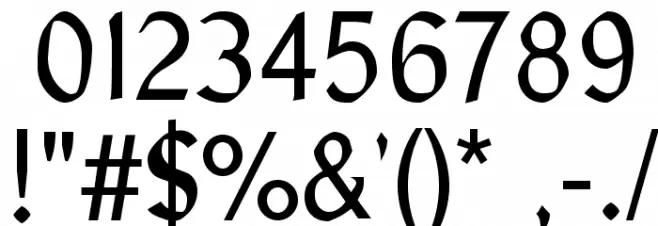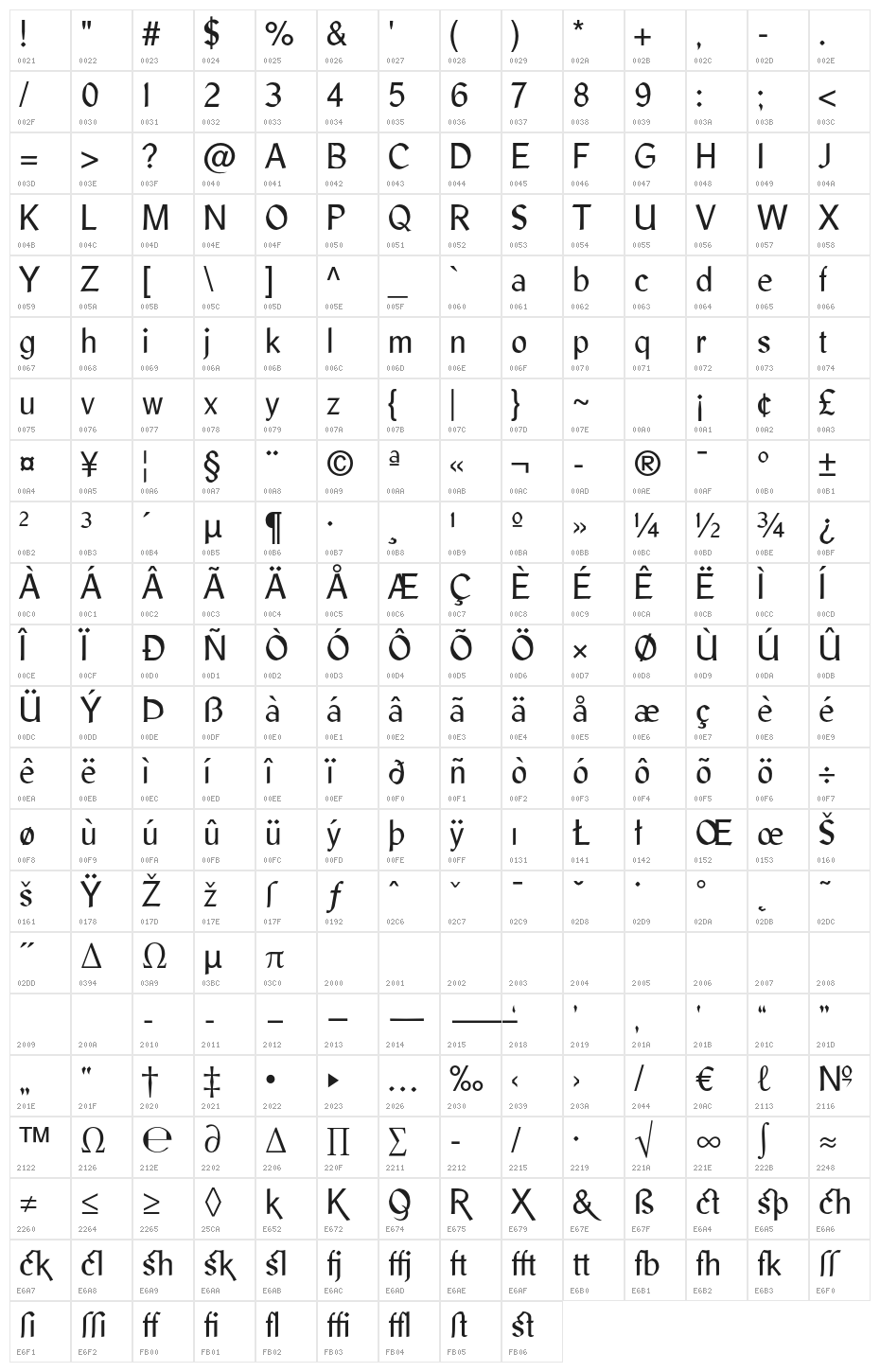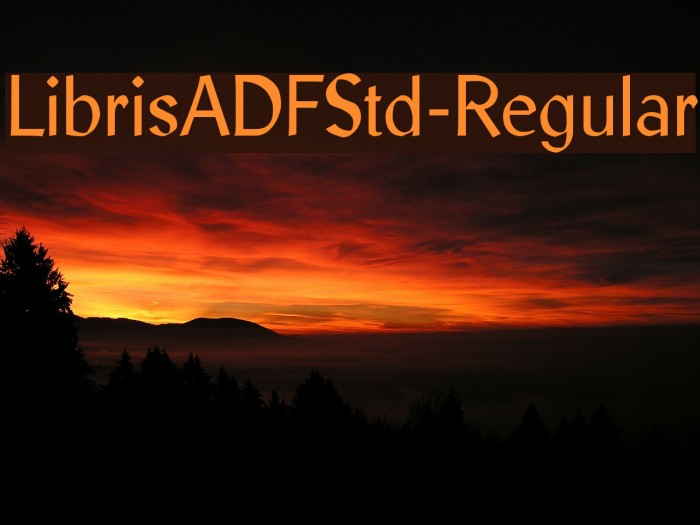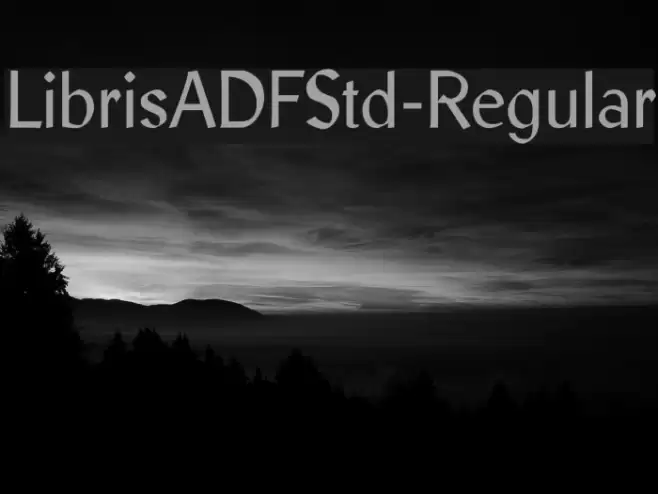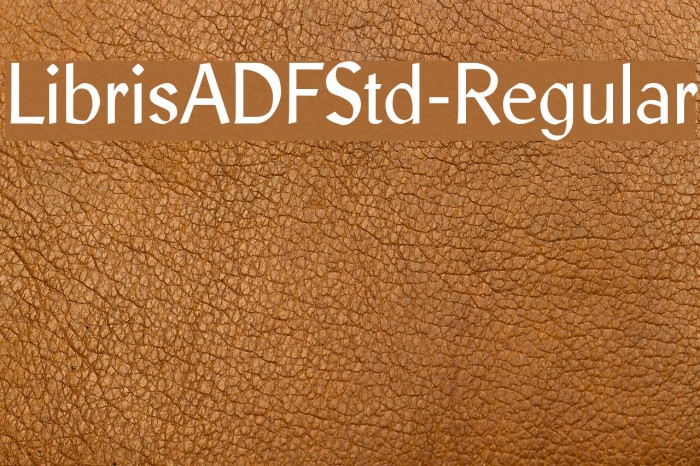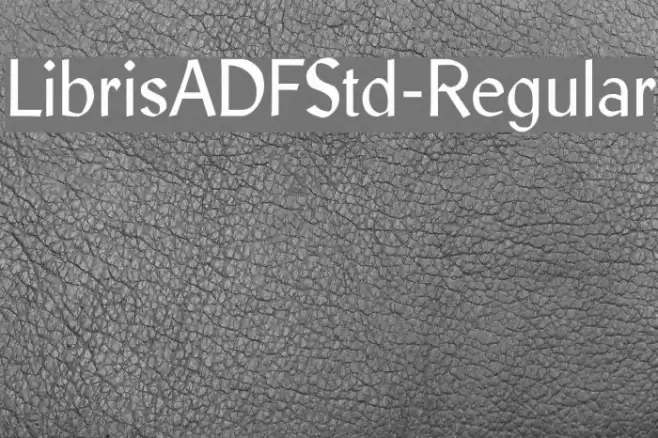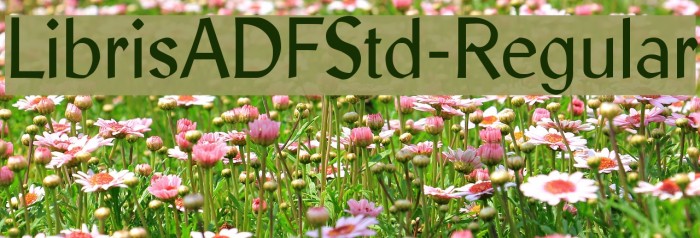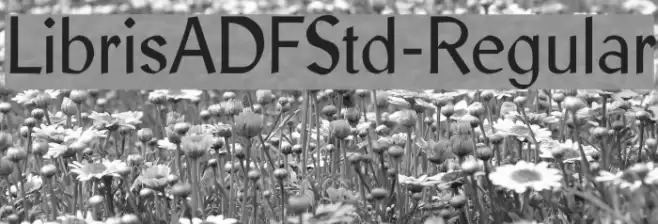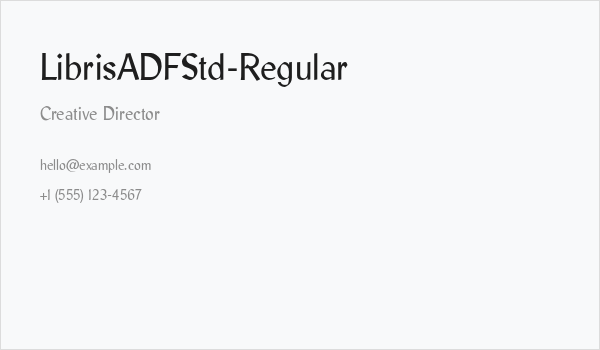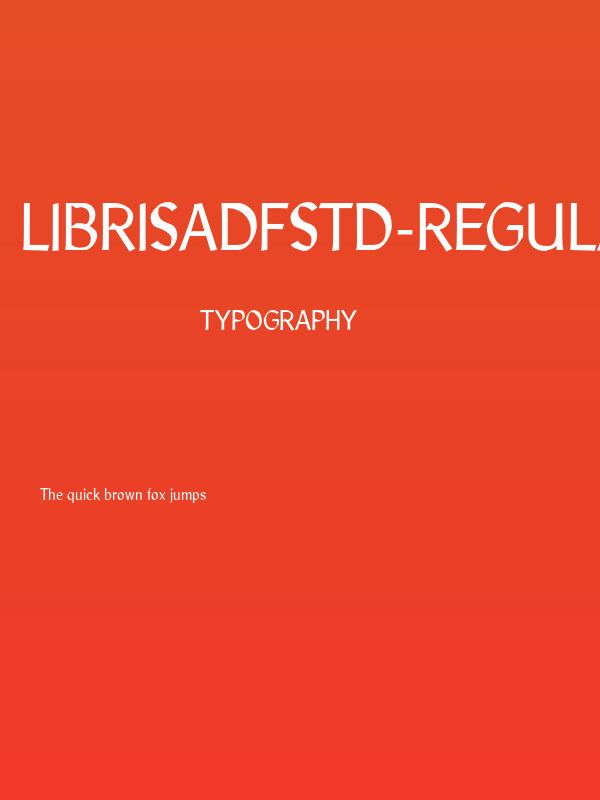
LibrisADFStd-Regular Font
LibrisADFStd-Regular Description
This font features a clean and modern sans-serif design with a balanced structure. The uppercase letters are bold and slightly condensed, providing a strong visual impact, while the lowercase letters maintain a consistent and harmonious flow. The numerals are clear and easily readable, making them suitable for various applications. Special characters are well-defined, adding versatility to the font's use. The overall appearance is professional and suitable for both digital and print media.
| Proposed Projects | Ideal for corporate branding, editorial design, web interfaces, and signage. |